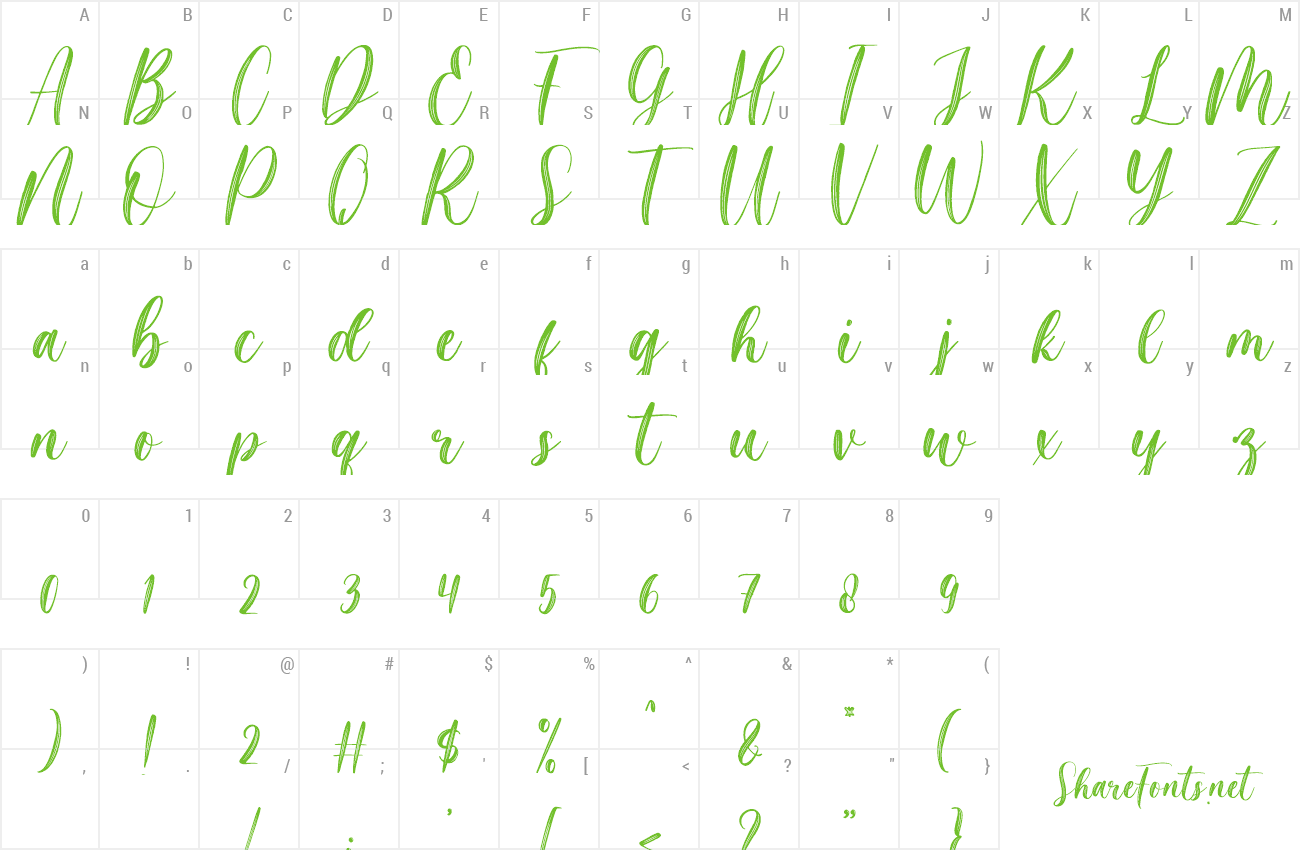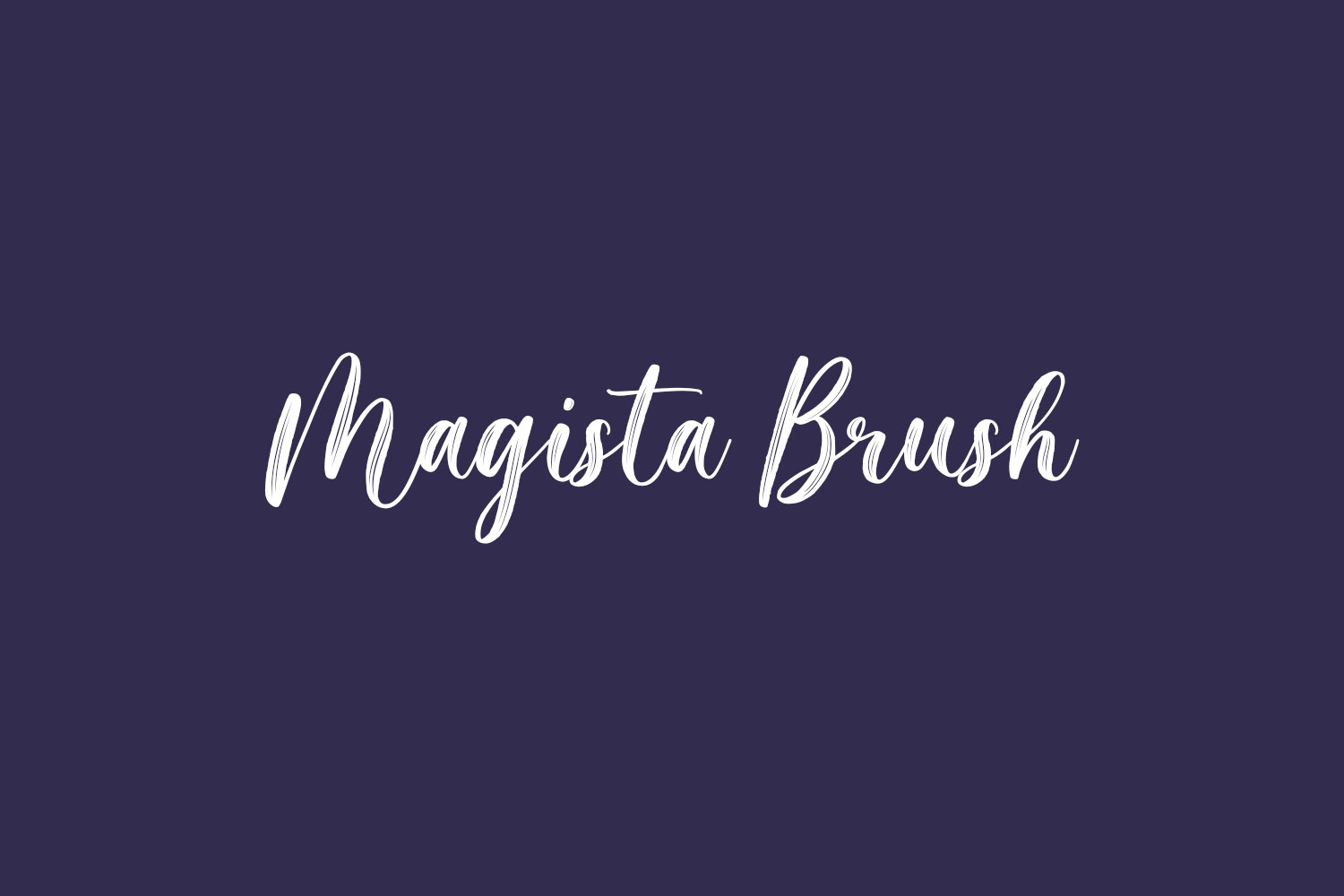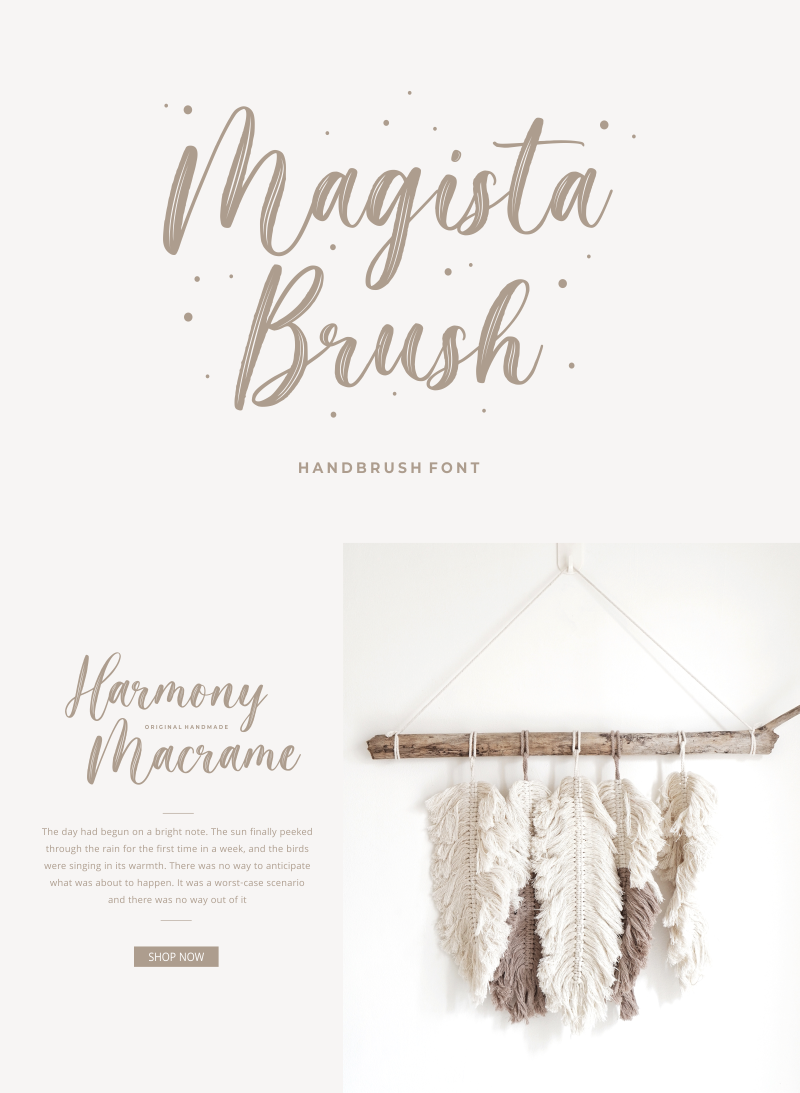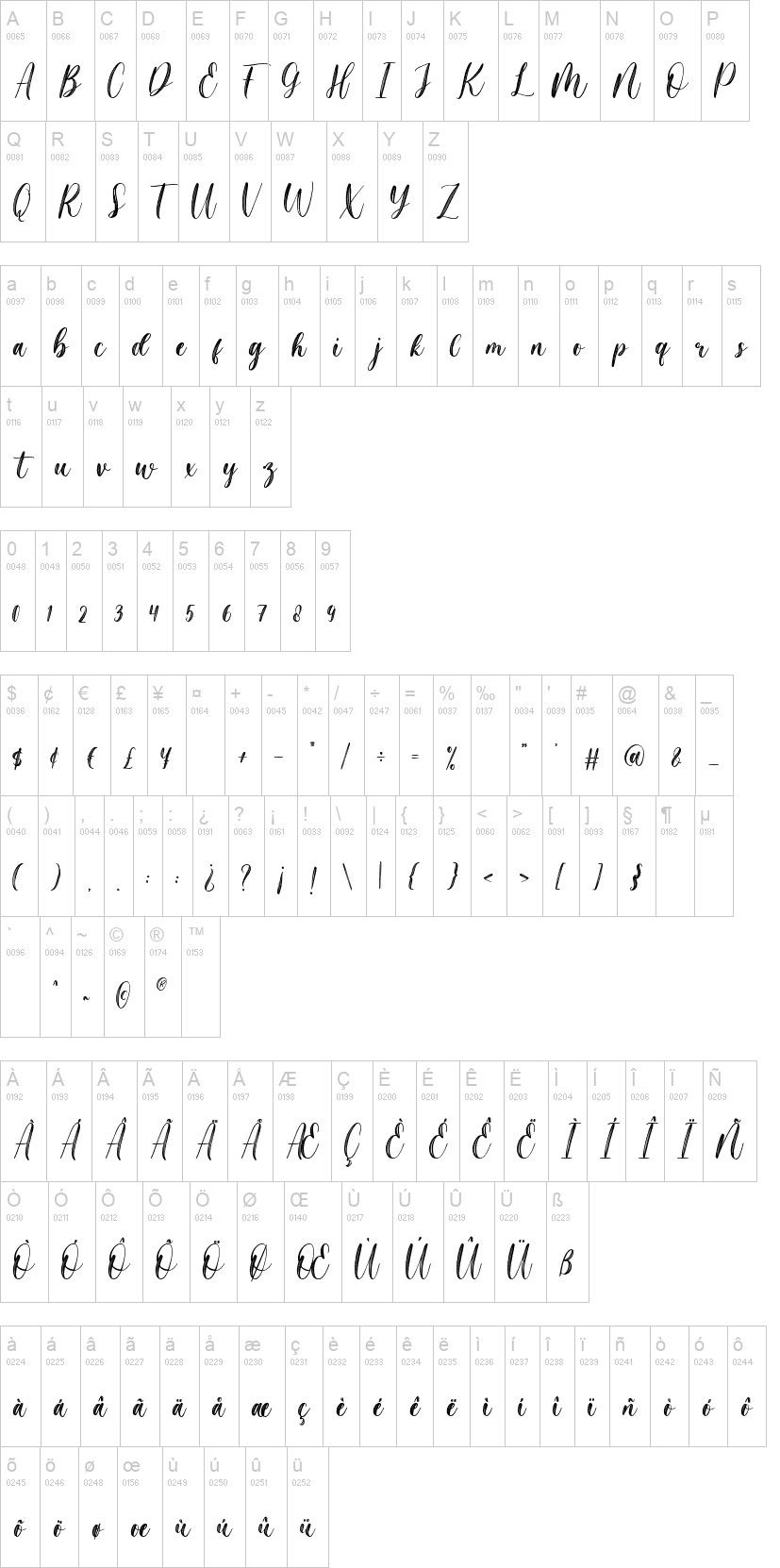
Magista Brush Font
Magista Brush Font - Magista brush is a flowing handwritten font, described by an elegant touch, perfect for your favorite projects. Web magista brush font | dafont.com. Web magista brush font. Web magista brush font download. Magista brush font is natural handbrush typeface which looks modern and classy will.
Web magista brush font | dafont.com. Magista brush is a flowing handwritten font, described by an elegant touch, perfect for your favorite projects. Magista brush font is natural handbrush typeface which looks modern and classy will. Web magista brush font download. Web magista brush font.
Web magista brush font. Magista brush is a flowing handwritten font, described by an elegant touch, perfect for your favorite projects. Magista brush font is natural handbrush typeface which looks modern and classy will. Web magista brush font | dafont.com. Web magista brush font download.
Magista Brush font by Sronstudio FontRiver
Magista brush is a flowing handwritten font, described by an elegant touch, perfect for your favorite projects. Magista brush font is natural handbrush typeface which looks modern and classy will. Web magista brush font download. Web magista brush font | dafont.com. Web magista brush font.
Web magista brush font | dafont.com. Magista brush is a flowing handwritten font, described by an elegant touch, perfect for your favorite projects. Magista brush font is natural handbrush typeface which looks modern and classy will. Web magista brush font download. Web magista brush font.
Web magista brush font. Magista brush font is natural handbrush typeface which looks modern and classy will. Web magista brush font | dafont.com. Magista brush is a flowing handwritten font, described by an elegant touch, perfect for your favorite projects. Web magista brush font download.
Magista Brush Font Dfonts
Magista brush font is natural handbrush typeface which looks modern and classy will. Magista brush is a flowing handwritten font, described by an elegant touch, perfect for your favorite projects. Web magista brush font | dafont.com. Web magista brush font. Web magista brush font download.
Magista Brush font
Magista brush font is natural handbrush typeface which looks modern and classy will. Web magista brush font | dafont.com. Web magista brush font. Magista brush is a flowing handwritten font, described by an elegant touch, perfect for your favorite projects. Web magista brush font download.
Web magista brush font. Web magista brush font | dafont.com. Magista brush font is natural handbrush typeface which looks modern and classy will. Magista brush is a flowing handwritten font, described by an elegant touch, perfect for your favorite projects. Web magista brush font download.
Magista Brush Fonts Shmonts
Magista brush is a flowing handwritten font, described by an elegant touch, perfect for your favorite projects. Web magista brush font. Magista brush font is natural handbrush typeface which looks modern and classy will. Web magista brush font download. Web magista brush font | dafont.com.
Magista Brush font
Web magista brush font. Web magista brush font | dafont.com. Magista brush is a flowing handwritten font, described by an elegant touch, perfect for your favorite projects. Magista brush font is natural handbrush typeface which looks modern and classy will. Web magista brush font download.
Magista Brush Font
Magista brush is a flowing handwritten font, described by an elegant touch, perfect for your favorite projects. Web magista brush font. Magista brush font is natural handbrush typeface which looks modern and classy will. Web magista brush font download. Web magista brush font | dafont.com.
Magista Brush Font
Web magista brush font download. Web magista brush font | dafont.com. Web magista brush font. Magista brush font is natural handbrush typeface which looks modern and classy will. Magista brush is a flowing handwritten font, described by an elegant touch, perfect for your favorite projects.
Magista Brush Is A Flowing Handwritten Font, Described By An Elegant Touch, Perfect For Your Favorite Projects.
Web magista brush font | dafont.com. Web magista brush font. Magista brush font is natural handbrush typeface which looks modern and classy will. Web magista brush font download.